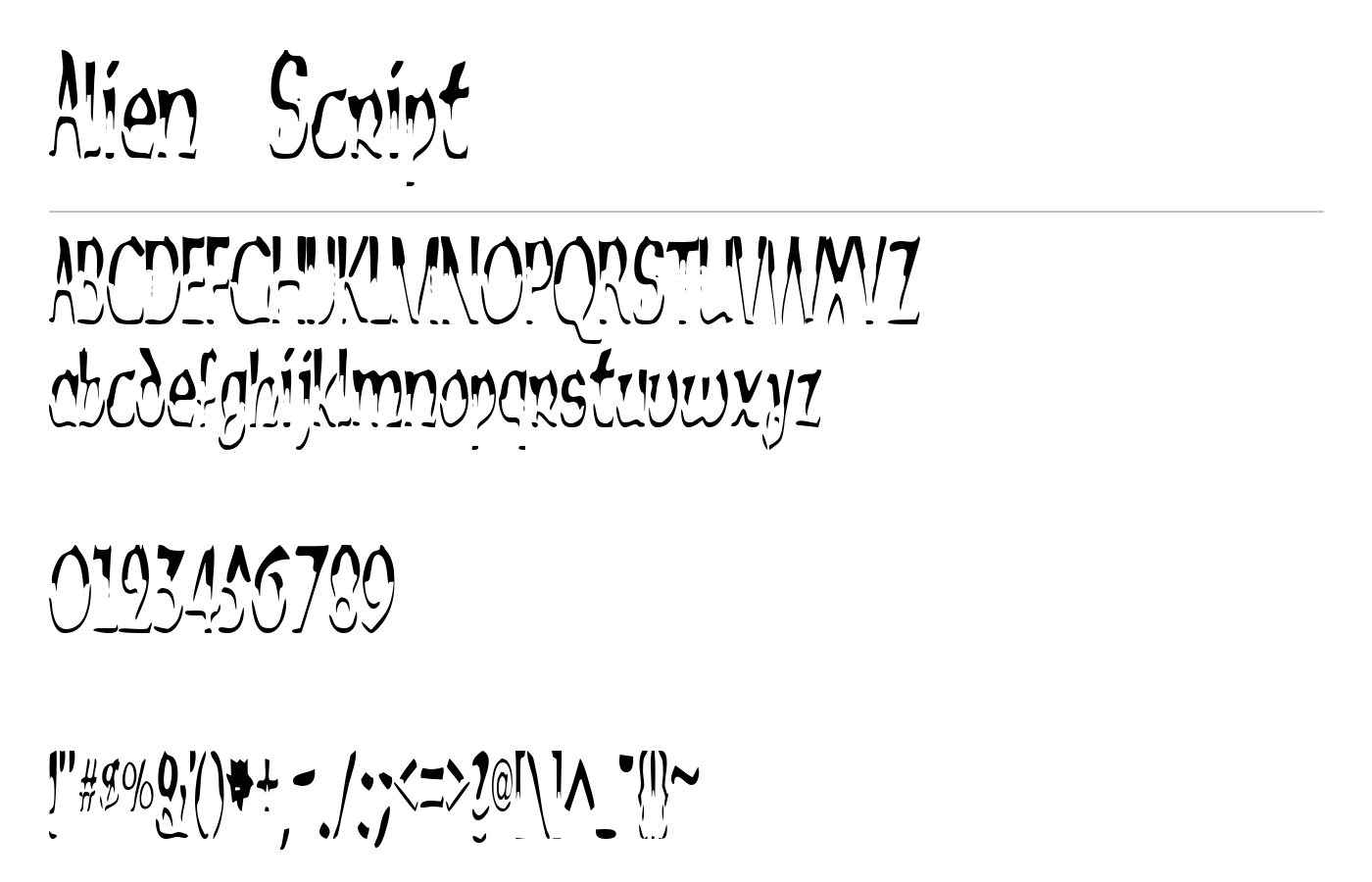
Alien Script Font is a unique, distorted display typeface with an eerie and otherworldly vibe, featuring irregular strokes and uneven shapes that create a sense of mystery and alien intrigue. Its tall, narrow letterforms and high contrast between thick and thin elements make it perfect for eye-catching headlines, posters, and branding that aims to convey a futuristic or sci-fi atmosphere. This stylized font works best in creative projects where an unconventional and playful, yet somewhat spooky mood is desired.
Alien Script Font
About Alien Script Font
| Font family | Alien Script Font |